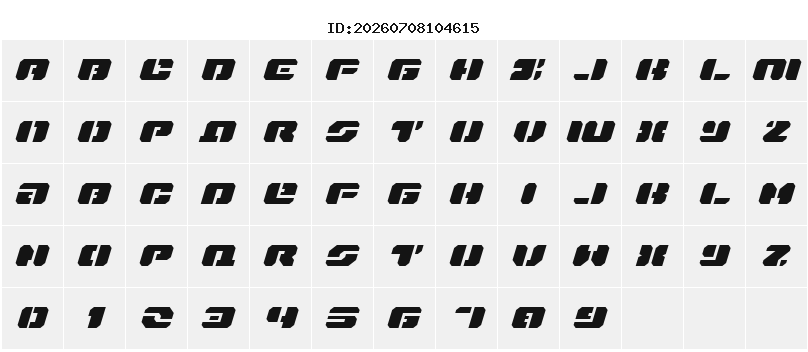
Dan Stargate Extra-expanded Italic Preview
• Font Name: Dan Stargate Extra-expanded Italic
• Font Style: Extra-expanded Italic
• Full Font Name: Dan Stargate Extra-expanded Italic
Dan Stargate Extra-expanded Italic.ttf is a modern, elegant sans-serif font designed for ultimate readability and visual harmony. Perfect for branding, headlines, web design, and print materials.